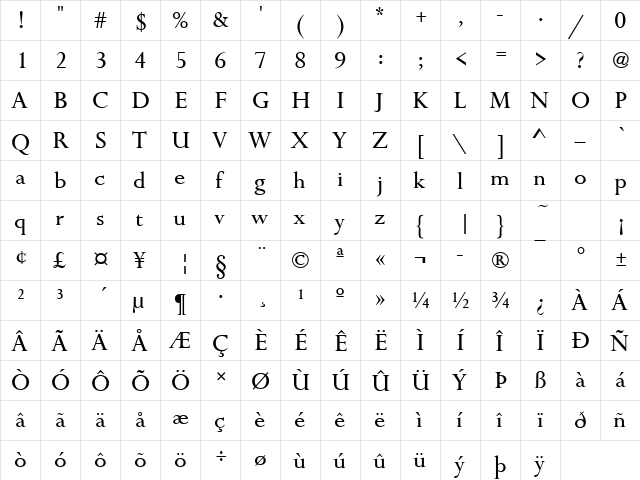
URWPerseusT Regular
Design Context for URWPerseusT Typeface
URWPerseusT offers clean, dependable letterforms without strong stylistic allegiance, making it a practical choice for designers who need flexibility.
Pro Tip: Pair URWPerseusT with a font of contrasting weight or personality to build a more expressive typographic hierarchy.